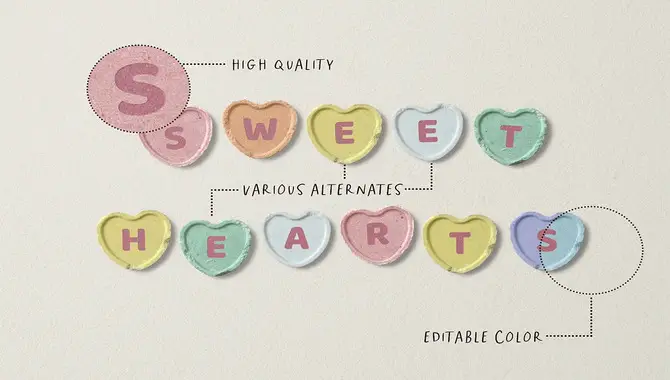
How To Use Conversation Heart Font In Your Designs
The conversation heart font is a popular typeface that has gained much attention recently, notably around Valentine’s Day. This font is inspired by the classic candy hearts often exchanged as sweet messages of love and affection.
With its bold, rounded letters and playful vibe, the conversation heart font is perfect for creating cute and quirky cards, posters, and social media graphics designs. Whether you’re a graphic designer or just looking to add fun to your Valentine’s Day messages, the conversation heart font is a great choice.
We will explain what conversation heart font is, how to use it in your designs, and where to find some of the best free and paid options. We will also discuss the benefits of using this font, common mistakes to avoid, and DIY tips for creating your conversation heart font. Plus, we’ll cover whether or not you can use this font in commercial projects.
Conversation Heart Font
What Is Conversation Heart Font?
What Is Conversation Heart Font
The conversation heart font is a typeface that mimics the look of the classic candy hearts that are commonly exchanged on Valentine’s Day. It features bold, round letters with a playful and whimsical vibe.
This font is perfect for creating cute and quirky designs for cards, posters, social media graphics, and more. Its popularity has grown in recent years, making it an essential part of any designer’s toolkit.
Using Conversation Heart Font On Your Designs
Benefits Of Using Conversation Heart Font
Using conversation heart font in your Valentine’s Day or love-themed designs has numerous benefits. Firstly, the font is playful and whimsical, adding personality and charm to any project. Its popularity has grown recently, making it a recognizable and trendy choice for designers.
Furthermore, by using conversation heart font, you can create unique and eye-catching designs that stand out from the crowd, helping to capture your audience’s attention and make a lasting impression.
Where To Find Some Of The Best Conversation Heart Fonts
These websites offer various options, from classic conversation heart designs to more modern and unique styles. With so many choices available, you’re sure to find a font that perfectly fits your project and helps you create a unique and eye-catching design.